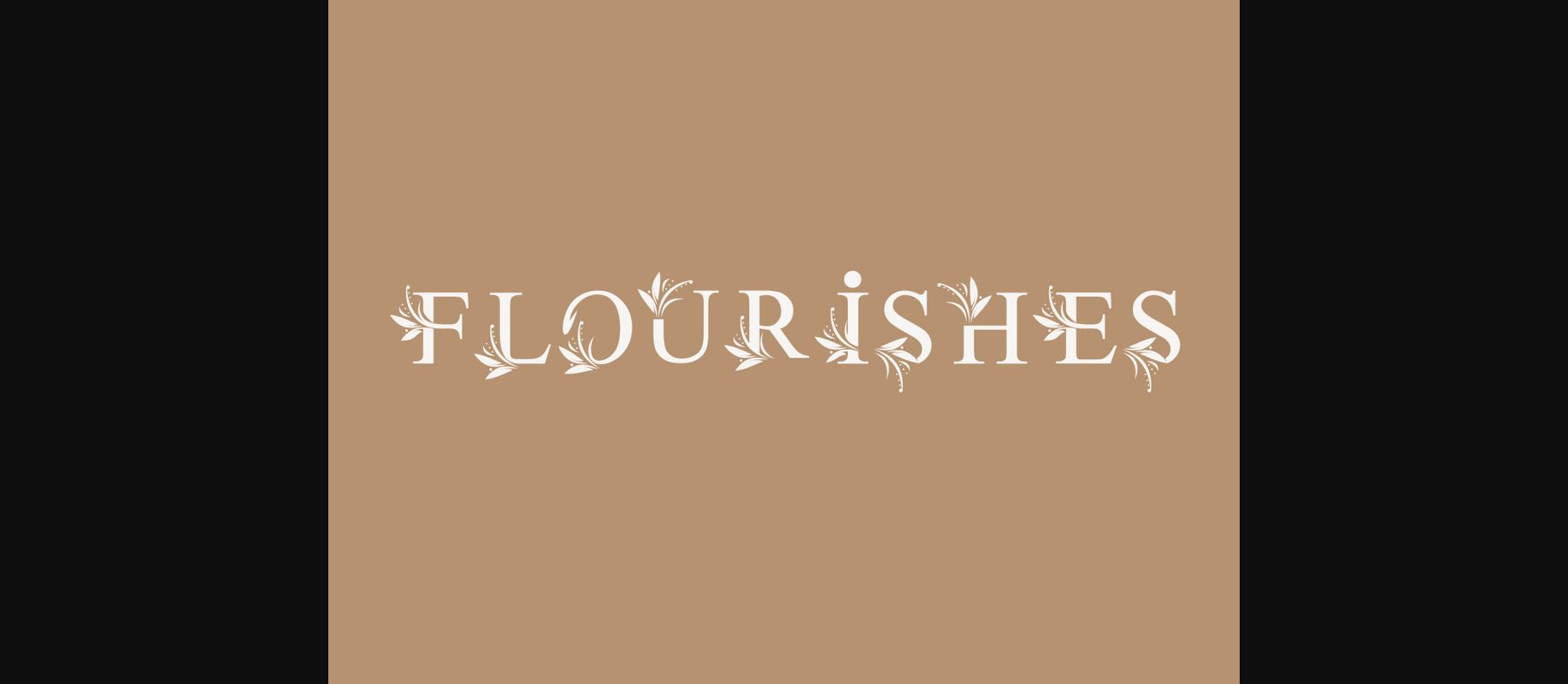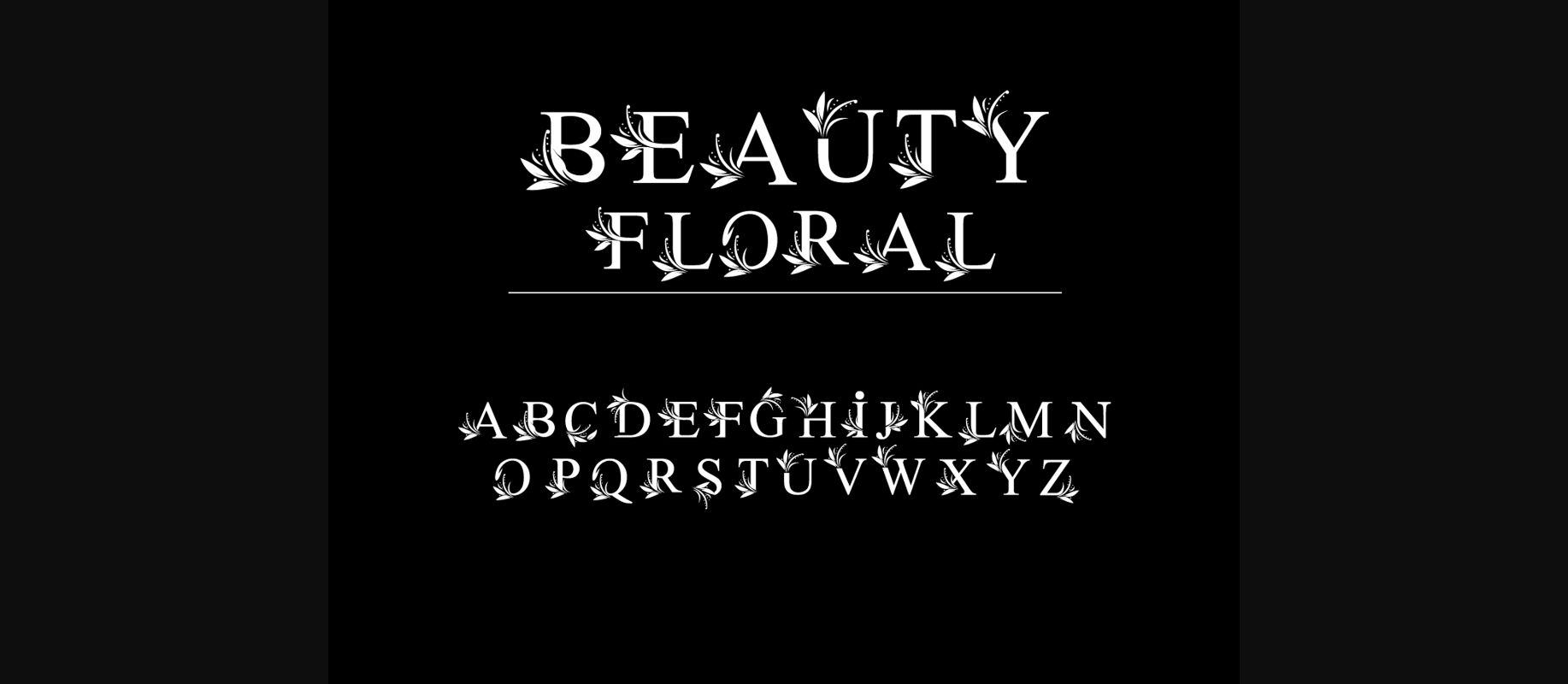
About Flourishes Font
Flourishes is a beautiful and elegant decorative font. Fall in love with its incredibly versatile style and use it to create gorgeous wedding invitations, beautiful stationary art, eye-catching social media posts, and much more!